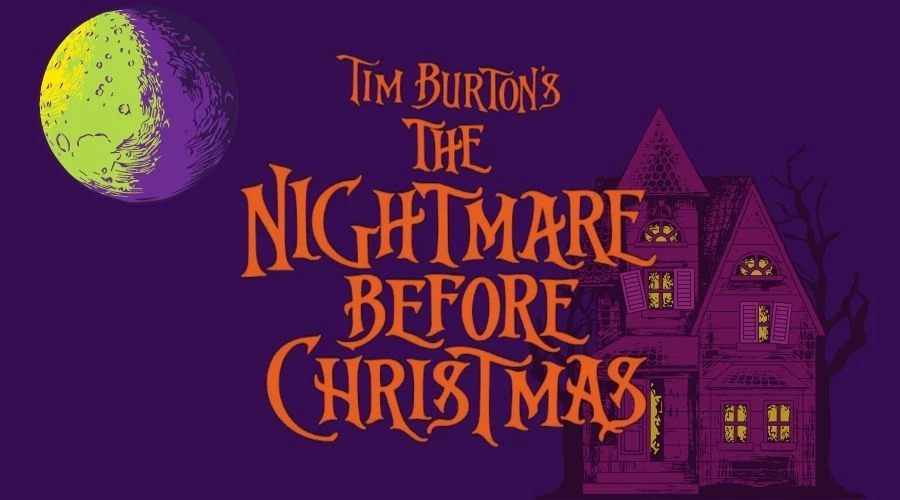
You can see the Nightmare Before Christmas Logo font in a stop motion film “The Nightmare Before Christmas” poster, which Henry Selick directed and released in 1993. Due to the show’s popularity, many designers and fans want to use its logo font for their projects.
Burton’s Nightmare is the closest font that matched with The Nightmare Before Christmas film title lettering. Film Himmel and Jens R. Ziehn designed the font. The font was actually published before 2005. Burton’s Nightmare font is a Gothic-type horror & fancy font. This font is free for personal use. For the commercial version, you need to get permission from the original owner. The free version can be downloaded from our site. Just head to the download button section and collect the font.
Nightmare Before Christmas font is used most of the time on Halloween. But you can also use the font in banners, posters, brochures, YouTube thumbnails, etc.